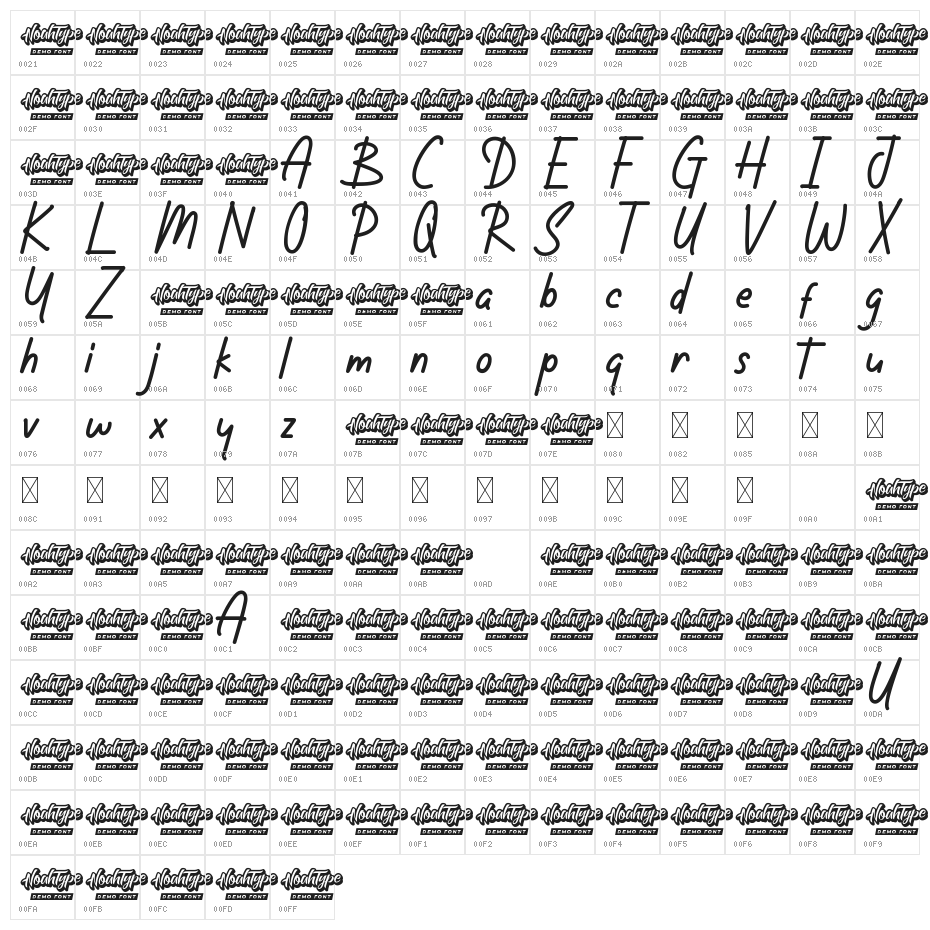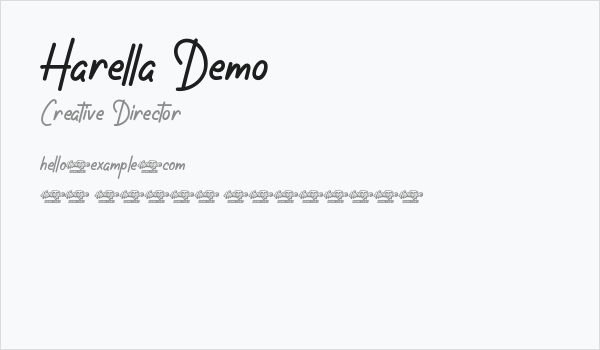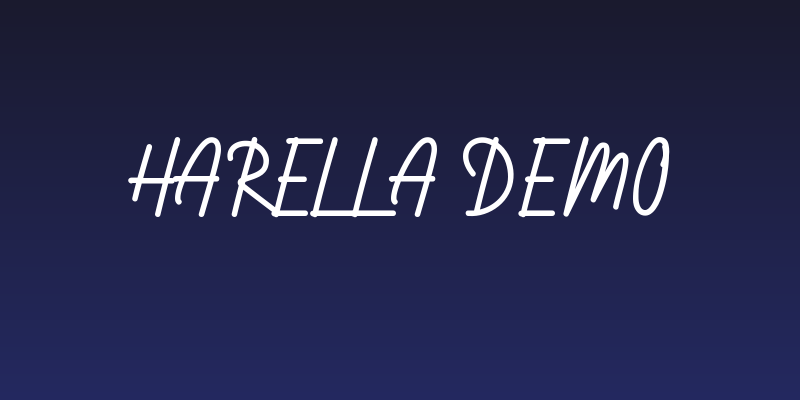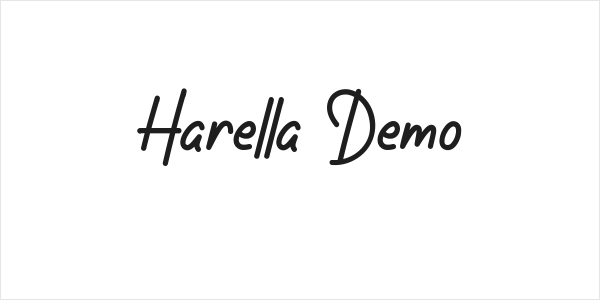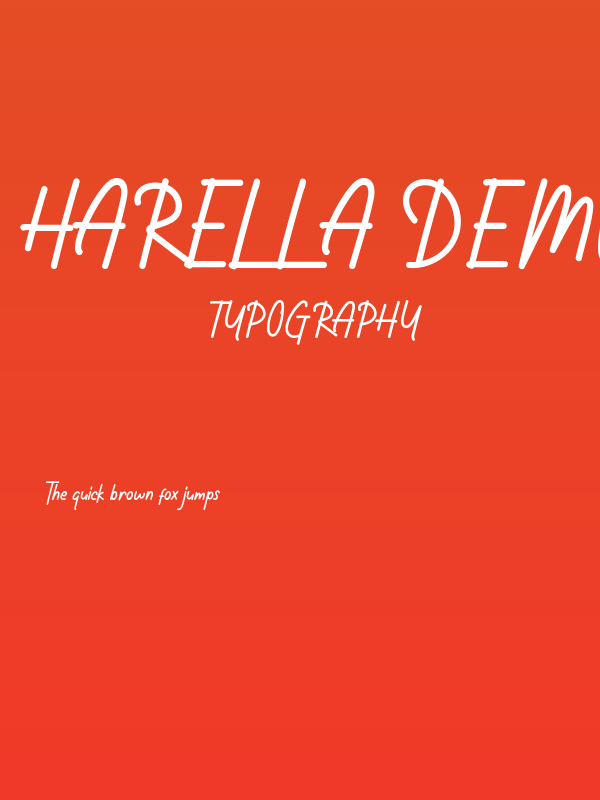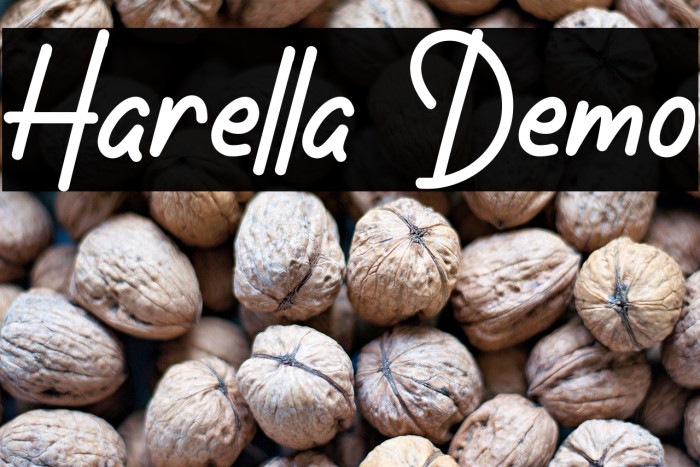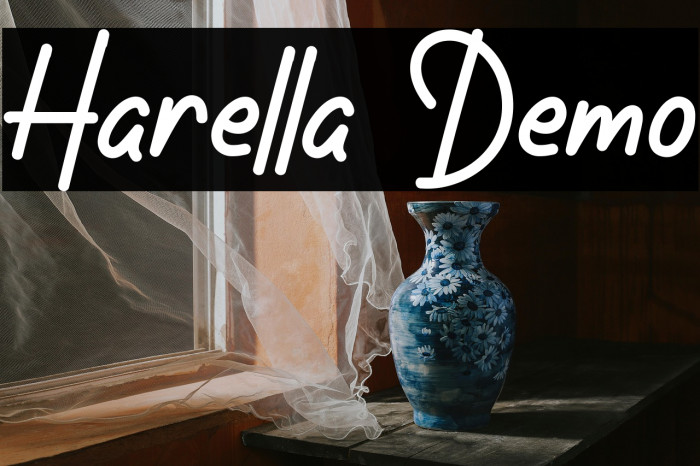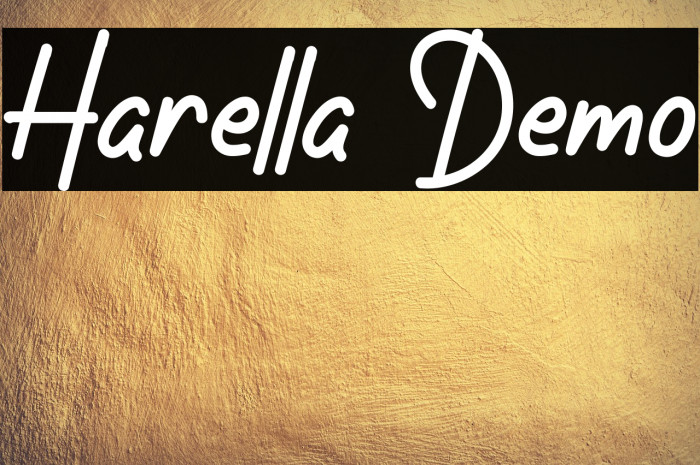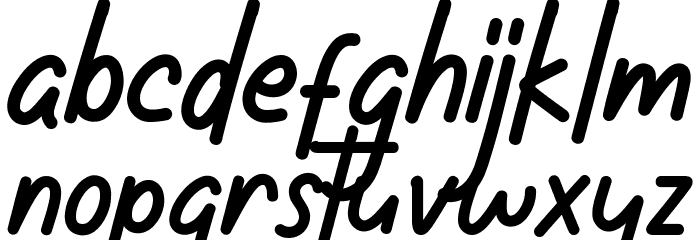
Harella Demo Font
Harella Demo Description
This font features a dynamic and fluid script style, characterized by its smooth, flowing lines and elegant curves. The uppercase letters are slightly slanted, giving a sense of motion and energy, while the lowercase letters maintain a consistent rhythm with rounded forms. The font exhibits a casual yet sophisticated appearance, making it versatile for various design needs. The strokes are moderately thick, providing good readability without compromising its stylish nature. The overall design is cohesive, with a harmonious balance between the letters, making it suitable for both digital and print media.